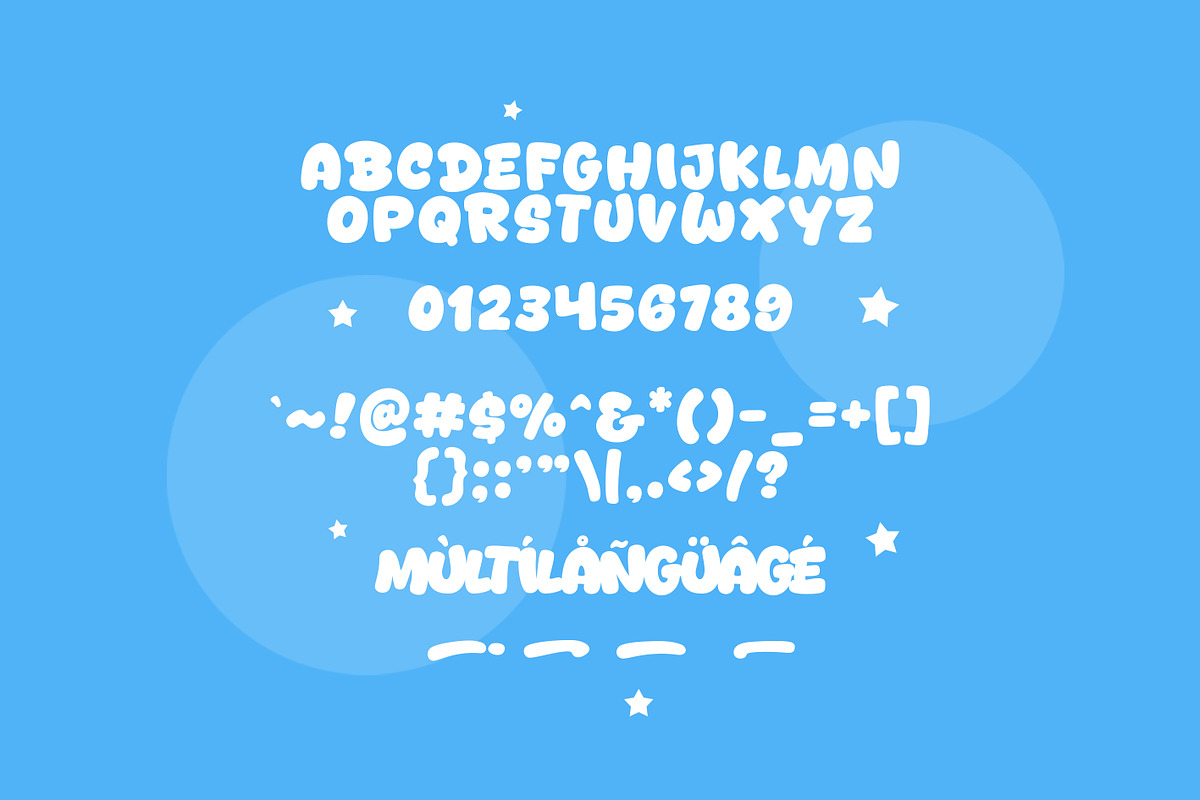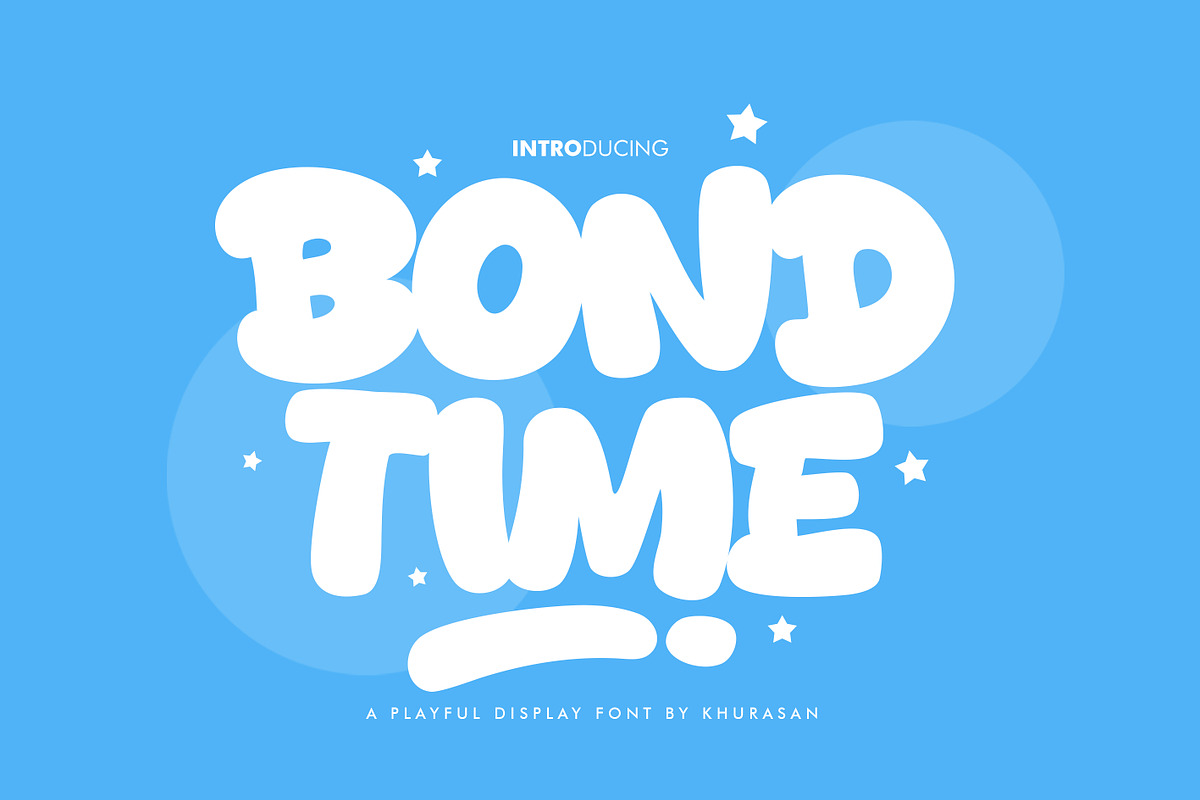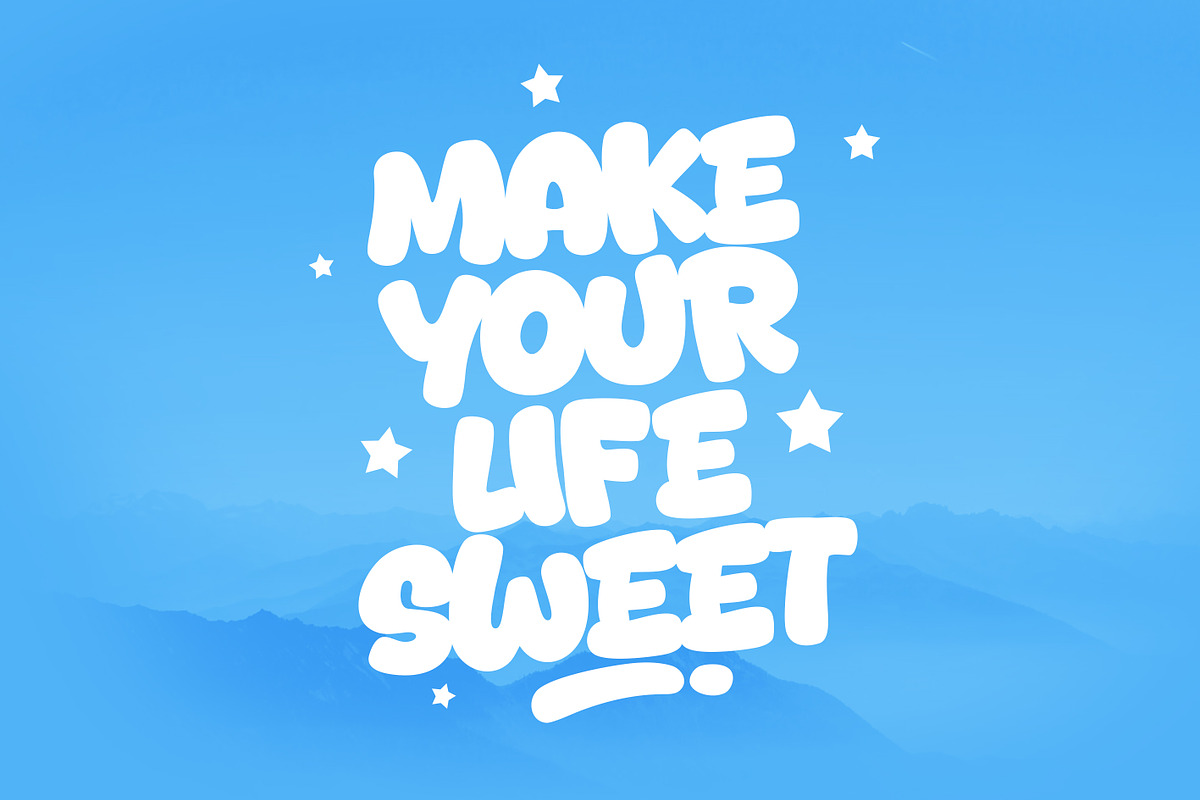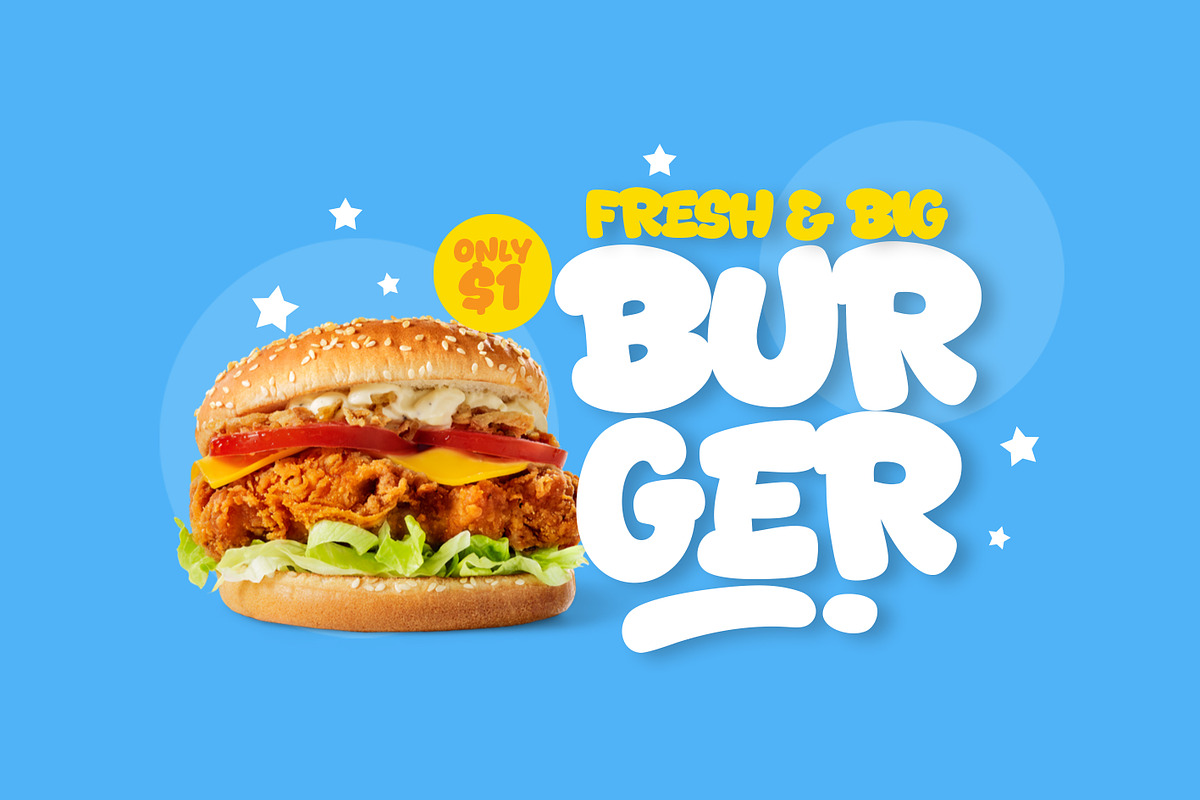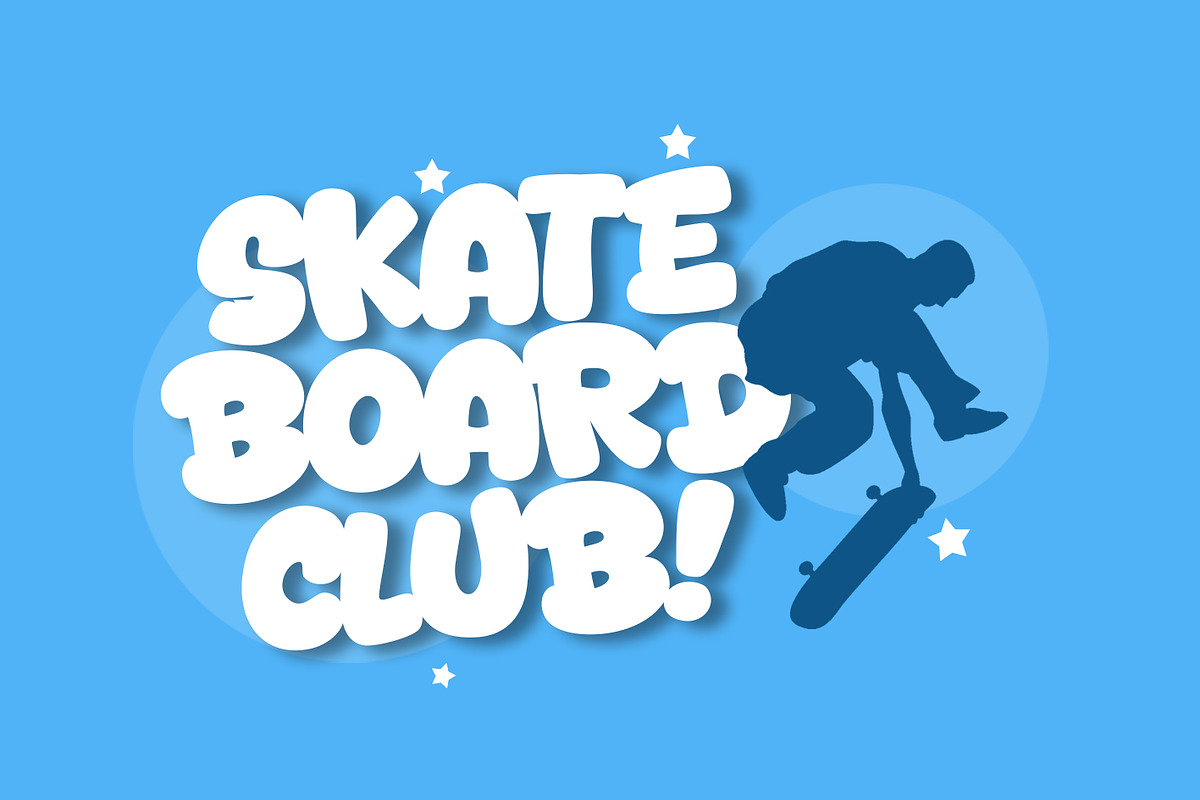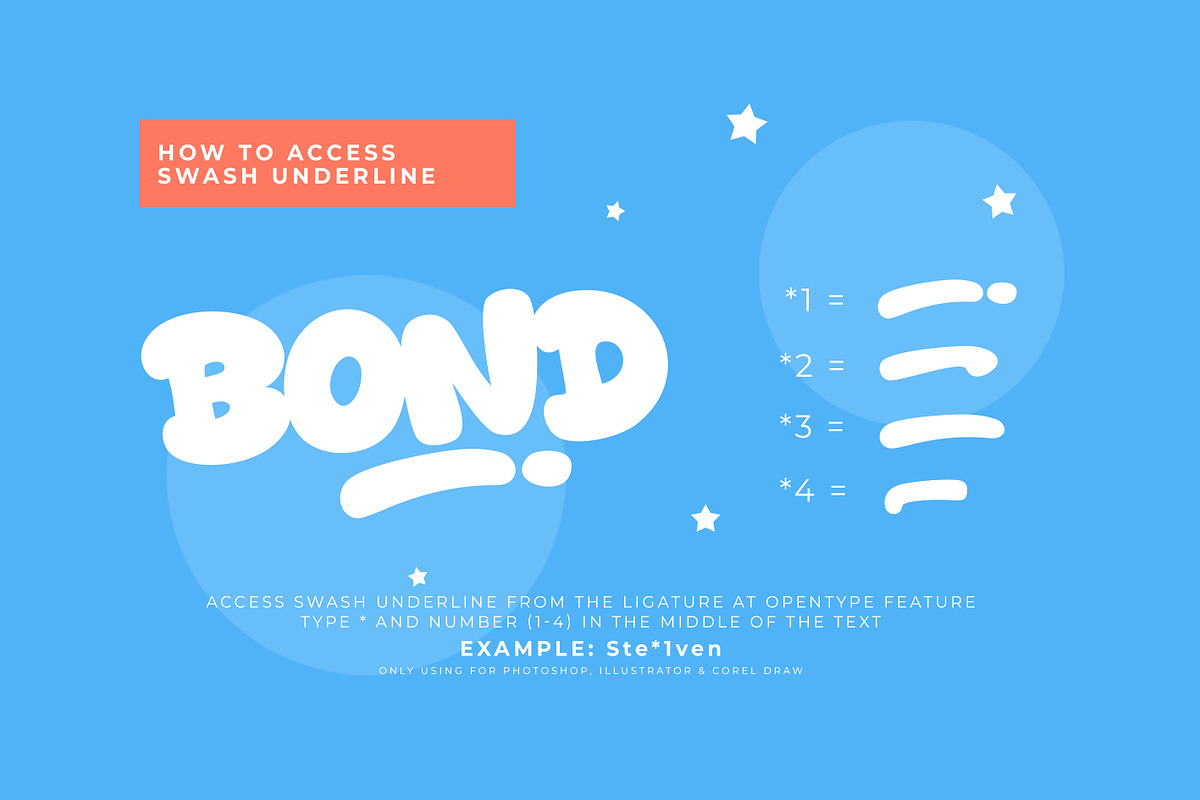
Bond Time
Introducing, Bond Time font a fun display typeface with cheerful theme for your fun project. Bond Time font suitable for logo, branding, greeting card, poster and any design that you create.
Khurasan